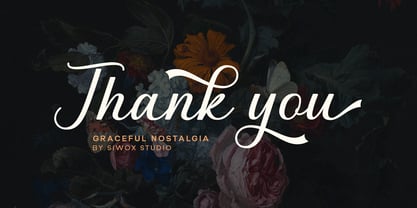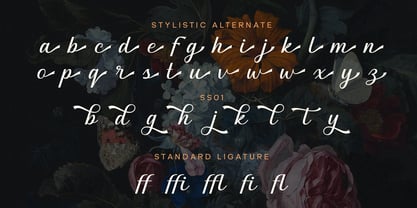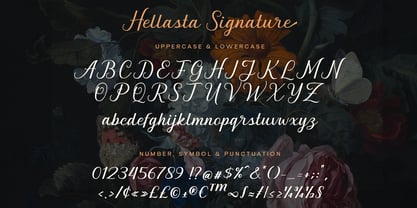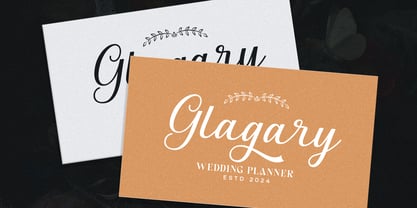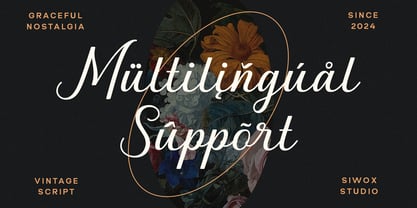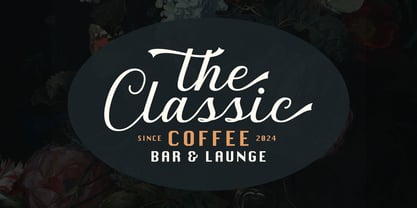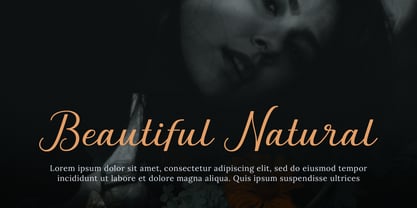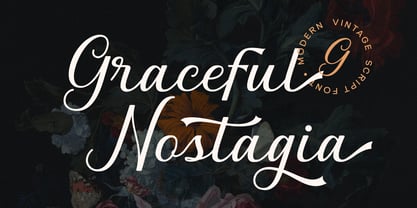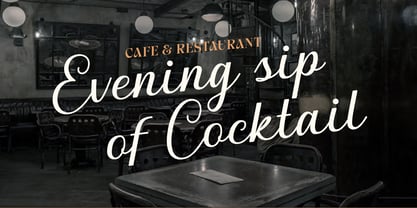
Graceful Nostagia
by Siwox Studios
The Graceful Nostagia Font Family was designed by Rizaldi Wandani and published by Siwox Studios. Graceful Nostagia contains 1 styles. More about this family
Graceful Nostalgia is a beautifully crafted script font that exudes vintage charm. Perfectly suited for a range of Design , this font shines in logos, invitations, labels, magazines, books, and greeting cards. Whether you're designing packaging, fashion materials, or stationery, Graceful Nostalgia adds a timeless touch to your creations, making every project feel special and refined
Designers: Rizaldi Wandani
Foundry: Siwox Studios